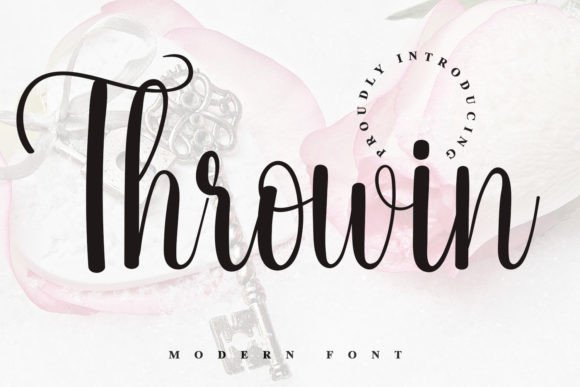
Welcome to the world of Throwin Font, a captivating script font that will ignite your creativity and leave a lasting impression on your audience. Crafted by the skilled hands of ABBAsalam, Throwin Font is a handwritten masterpiece that embodies the essence of elegance and charm.
Immerse yourself in the beauty of Throwin Font's fluid strokes and delicate curves. Each character dances across the page with a grace and poise that will elevate your designs to new heights. Whether you're creating stunning logos, captivating social media posts, or eye-catching marketing materials, Throwin Font is the perfect choice for adding a touch of sophistication and personality to your projects.
Unleash your inner artist with Throwin Font's versatility. Whether you're working on a formal report, a heartfelt letter, or a whimsical invitation, this font will effortlessly adapt to your needs, transforming your words into works of art. Its wide range of applications makes it a must-have for any designer's toolkit, ensuring that you always have the perfect font at your fingertips.
Step into the spotlight with Throwin Font and watch as your designs take center stage. Its bold and confident personality will demand attention, while its timeless beauty will leave a lasting impression. Embrace the power of Throwin Font and prepare to elevate your creative endeavors to new heights.
Don't settle for ordinary fonts. Choose Throwin Font and embark on a journey of self-expression and artistic excellence. Let your creativity soar and let your designs speak volumes. The possibilities are endless with Throwin Font, so dive in and let your imagination run wild.